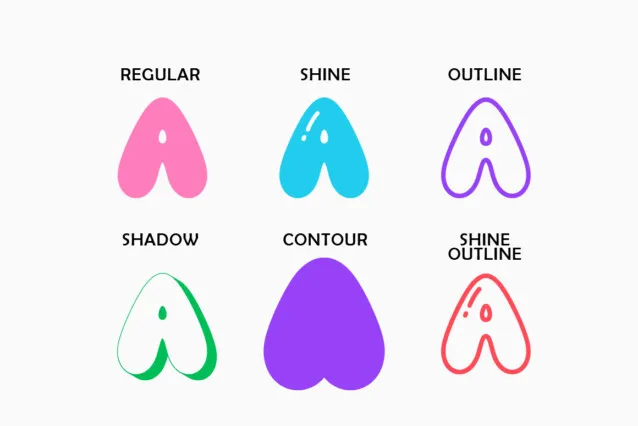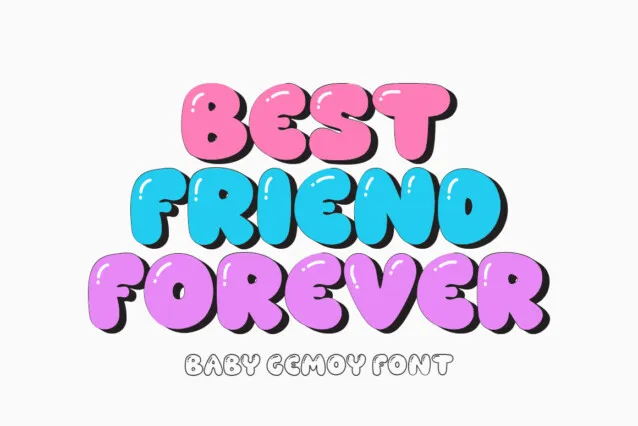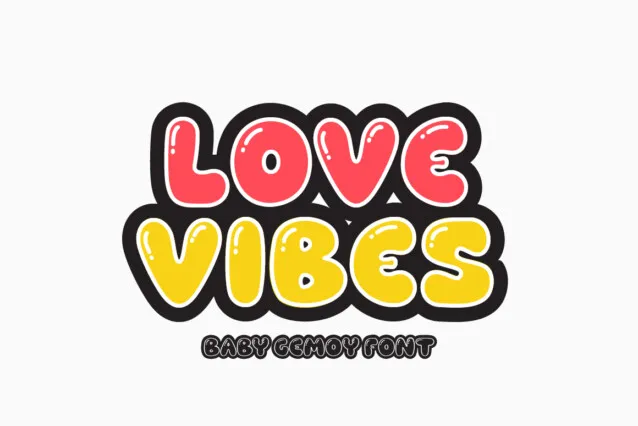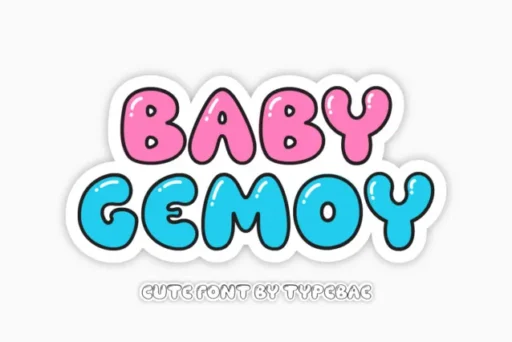
Baby Gemoy Font
The font Baby Gemoy is bubbly and fun, and it makes any design more charming. It looks like fun and friendliness with its soft, round letters. Six types are available, and each one has a strong look. You can mix them up to make titles that stand out or cute accents. It looks great on party invitations, holiday cards, children’s books, and posts on social media. Every project has a fun, happy feel because of its cool, happy shapes.
Where Baby Gemoy Font works best
Baby Gemoy Font is built for size: event posters, hero headlines and billboard-style layouts.
High contrast display type like Baby Gemoy Font reads instantly in thumbnails and motion graphics.
What is Baby Gemoy Font good for?